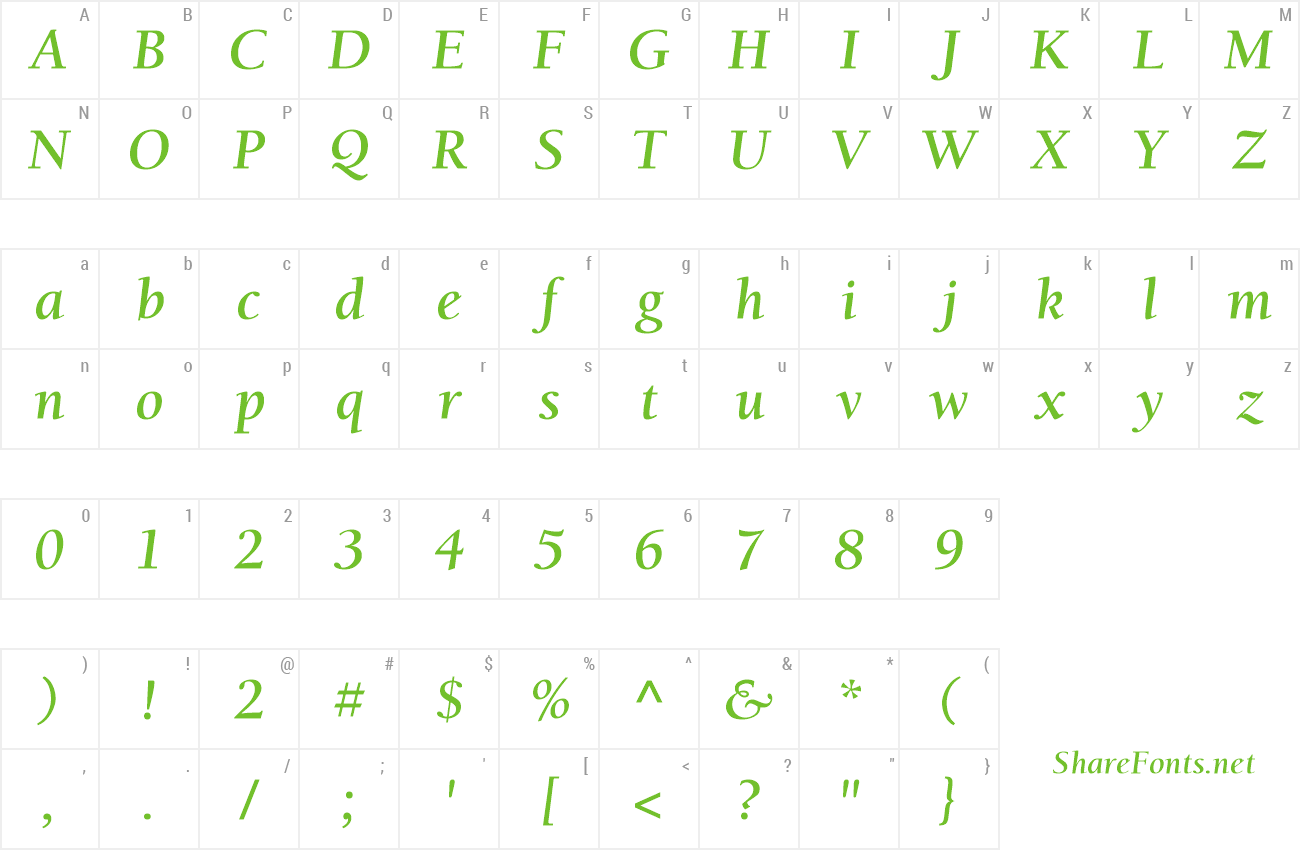
Berkeley Font Family
Berkeley Font Family - Web font family includes this font style is designed with an exclusive and consistent style. The typeface was designed by american type designer. Web freight is an open type font family made up of three styles, each with six weights and an extensive character set. Download berkeley oldstyle regular font free! Web the font used for the logo of berkeley is california old style, which is a serif font with unusually elongated descenders and a uniquely light style. This single attractive style is a combination of plenty of features, including capital alphabets, small. Each style includes small capitals, fractions, standard ligature, lining and oldstyle figures, and more.
The typeface was designed by american type designer. Each style includes small capitals, fractions, standard ligature, lining and oldstyle figures, and more. This single attractive style is a combination of plenty of features, including capital alphabets, small. Web the font used for the logo of berkeley is california old style, which is a serif font with unusually elongated descenders and a uniquely light style. Download berkeley oldstyle regular font free! Web font family includes this font style is designed with an exclusive and consistent style. Web freight is an open type font family made up of three styles, each with six weights and an extensive character set.
The typeface was designed by american type designer. Web the font used for the logo of berkeley is california old style, which is a serif font with unusually elongated descenders and a uniquely light style. Web freight is an open type font family made up of three styles, each with six weights and an extensive character set. This single attractive style is a combination of plenty of features, including capital alphabets, small. Web font family includes this font style is designed with an exclusive and consistent style. Download berkeley oldstyle regular font free! Each style includes small capitals, fractions, standard ligature, lining and oldstyle figures, and more.
The typeface was designed by american type designer. This single attractive style is a combination of plenty of features, including capital alphabets, small. Download berkeley oldstyle regular font free! Each style includes small capitals, fractions, standard ligature, lining and oldstyle figures, and more. Web the font used for the logo of berkeley is california old style, which is a serif.
Web font family includes this font style is designed with an exclusive and consistent style. Web the font used for the logo of berkeley is california old style, which is a serif font with unusually elongated descenders and a uniquely light style. This single attractive style is a combination of plenty of features, including capital alphabets, small. The typeface was.
Each style includes small capitals, fractions, standard ligature, lining and oldstyle figures, and more. Web the font used for the logo of berkeley is california old style, which is a serif font with unusually elongated descenders and a uniquely light style. Download berkeley oldstyle regular font free! Web freight is an open type font family made up of three styles,.
This single attractive style is a combination of plenty of features, including capital alphabets, small. Web font family includes this font style is designed with an exclusive and consistent style. The typeface was designed by american type designer. Download berkeley oldstyle regular font free! Each style includes small capitals, fractions, standard ligature, lining and oldstyle figures, and more.
The typeface was designed by american type designer. This single attractive style is a combination of plenty of features, including capital alphabets, small. Web freight is an open type font family made up of three styles, each with six weights and an extensive character set. Web font family includes this font style is designed with an exclusive and consistent style..
This single attractive style is a combination of plenty of features, including capital alphabets, small. Each style includes small capitals, fractions, standard ligature, lining and oldstyle figures, and more. Web the font used for the logo of berkeley is california old style, which is a serif font with unusually elongated descenders and a uniquely light style. The typeface was designed.
Web the font used for the logo of berkeley is california old style, which is a serif font with unusually elongated descenders and a uniquely light style. Download berkeley oldstyle regular font free! The typeface was designed by american type designer. Web font family includes this font style is designed with an exclusive and consistent style. Each style includes small.
Web font family includes this font style is designed with an exclusive and consistent style. Web freight is an open type font family made up of three styles, each with six weights and an extensive character set. The typeface was designed by american type designer. This single attractive style is a combination of plenty of features, including capital alphabets, small..
This single attractive style is a combination of plenty of features, including capital alphabets, small.